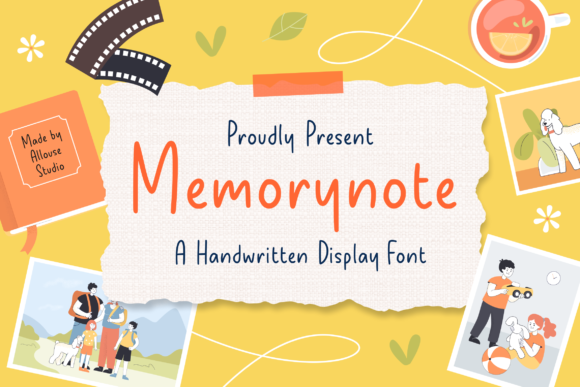
Embrace the timeless artistry of Memorynote, a script font family that evokes a symphony of emotions with its exquisite charm and elegance. Crafted by the visionary artists at allouse.studio, Memorynote is a masterpiece that dances across your designs, leaving an indelible mark of beauty and sophistication.
Memorynote's graceful curves and elegant swashes create a visual tapestry that transports you to a world of heartfelt expressions. Its delicate strokes mimic the nuance and warmth of handwritten notes, infusing your designs with a touch of intimacy and authenticity. With Memorynote, every letter becomes a testament to the enduring power of human connection.
Step into Memorynote's enchanting realm and discover a universe of possibilities. Whether you're designing wedding invitations, thank you cards, quotes, greeting cards, logos, business cards, or any other creation that calls for a handwritten touch, Memorynote is your perfect companion. Its versatility knows no bounds, allowing you to effortlessly elevate your designs and make a lasting impression.
Memorynote is not just a font; it's an experience that captivates the senses and ignites the imagination. Its intricate details and flowing lines invite you to explore a world where creativity thrives and emotions bloom. Embrace the power of Memorynote and transform your designs into works of art that resonate with audiences on a profound level.
Indulge in the allure of Memorynote, a font family that weaves a tapestry of emotions and elegance. Its delicate strokes and captivating curves are a testament to the enduring beauty of handwritten expression. Dive into Memorynote's enchanting realm and unleash your creativity, crafting designs that leave an indelible mark on the hearts of your audience.